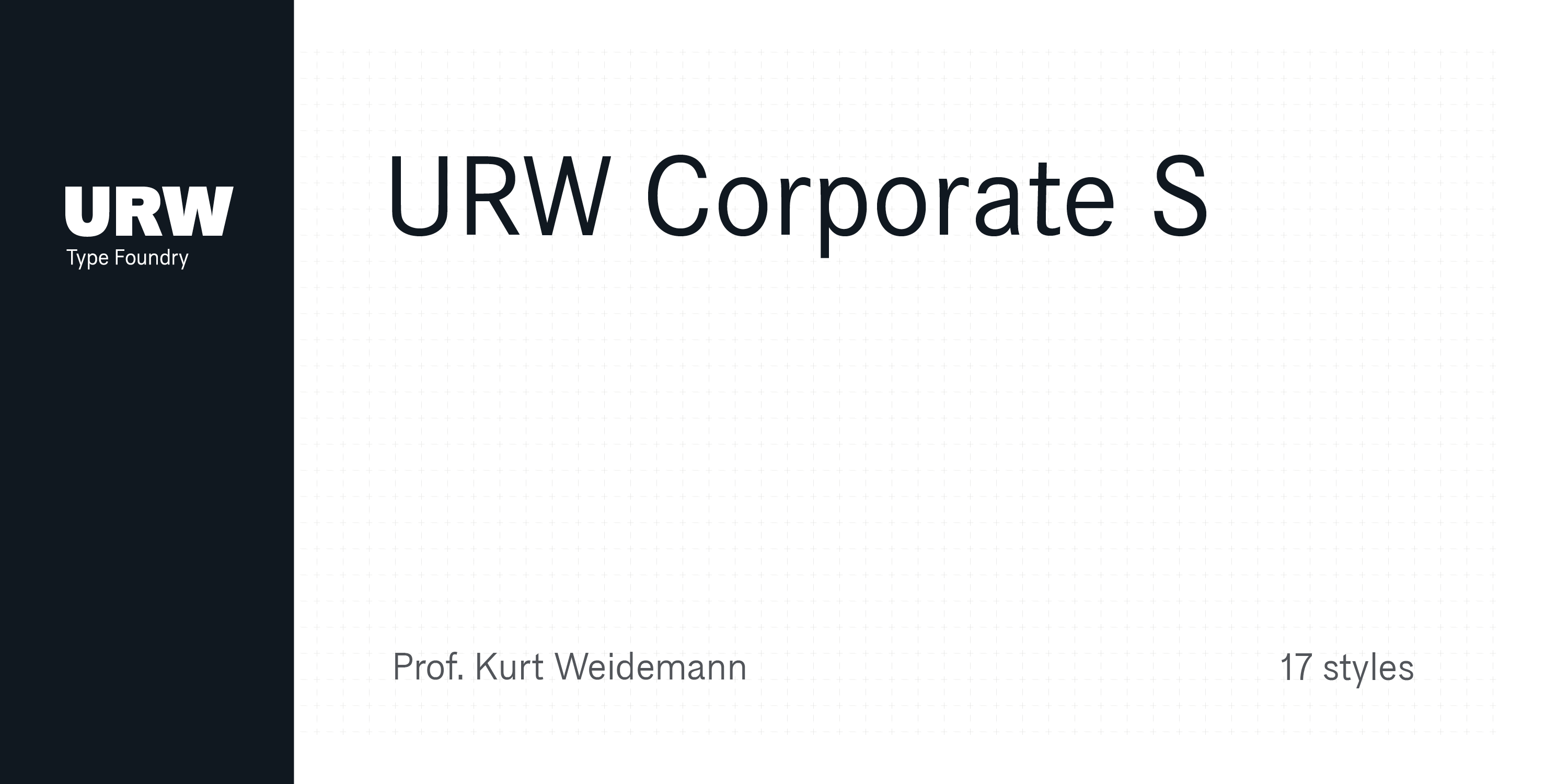
Corporate S Font is ideal for business communications, professional presentations, corporate annual reports, executive letterheads, financial documents, enterprise software interfaces, formal business proposals, institutional branding, government publications, and authoritative marketing materials. This refined sans-serif typeface brings executive authority and corporate professionalism to serious business applications.
What makes Corporate S Font so exciting is its masterful balance of corporate authority and human readability that creates the perfect voice for serious business communication and executive-level presentations. The font features precisely engineered letterforms with clean geometric construction and professional proportions that ensure exceptional clarity while projecting the confidence and reliability that corporate environments demand. Its distinctive characteristics include consistent stroke weights, optimized character spacing, and sophisticated construction that reflects the highest standards of corporate design and business communication. The font's proven performance in Fortune 500 environments and government applications makes Corporate S Font the definitive choice for organizations requiring typography that projects competence, trustworthiness, and unwavering professional standards.
The Corporate S Font family includes comprehensive weights and styles: Light, Regular, Medium, Bold, and Heavy variations, each optimized for business applications. The extensive character set encompasses complete Latin alphabet support with corporate symbols, financial notation characters, mathematical operators, international currency symbols, and broad global language coverage for multinational communications. Professional features include contextual alternates optimized for business documents, precise spacing for financial data presentation, clear character differentiation for legal applications, and enterprise-grade construction that ensures consistent performance across all corporate communication platforms and professional printing requirements.
Whether you're creating executive presentations, corporate brand materials, or professional business documents, Corporate S Font Free Download provides the authoritative typography that establishes credibility and trust in competitive business environments. Its exceptional functionality makes it perfect for both large-scale corporate branding and detailed financial reporting, while its professional character ensures authentic presentation that resonates with executive audiences and business stakeholders. The font's combination of corporate authority and technical precision makes it indispensable for Fortune 500 companies, professional service firms, government agencies, and any organization seeking typography that communicates the reliability, expertise, and unwavering commitment to excellence that defines success in today's demanding corporate and institutional environments.